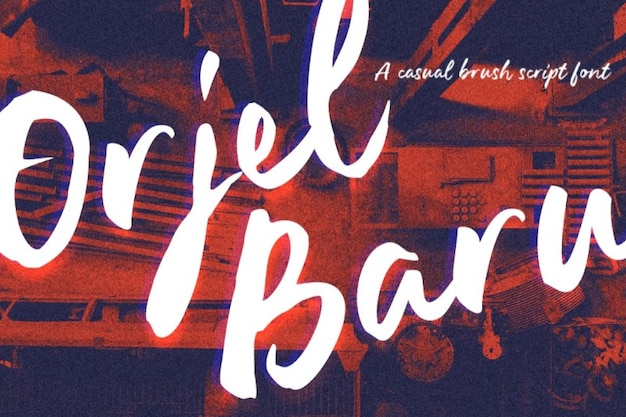
Orjel Baru Font
Majestype
It is a font that effortlessly blends the elegance of calligraphy with a casual, brushstroke flair. It's like a skilled calligrapher's casual yet deliberate strokes on paper. This font strikes the perfect balance between sophistication and approachability. It's an excellent choice for projects where you want to infuse a touch of artistic charm, whether it's in greeting cards, invitations, or even branding. "Orjel Baru" captures the essence of a handwritten masterpiece with every character.